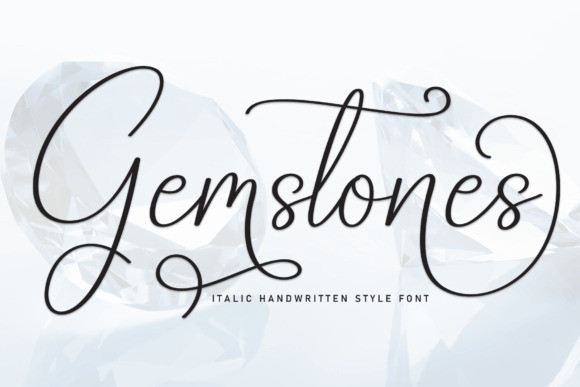
Gemstones Script Font
Gemstones Script Font is a magical script font carefully created with a touch of elegance. Whether you’re looking for fonts for Instagram or calligraphy scripts for DIY projects, this font will turn any creative idea into a true piece of art!